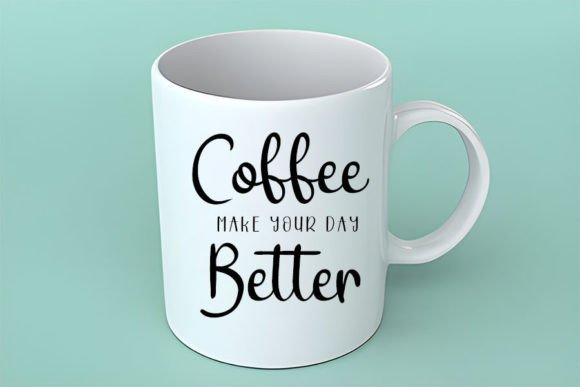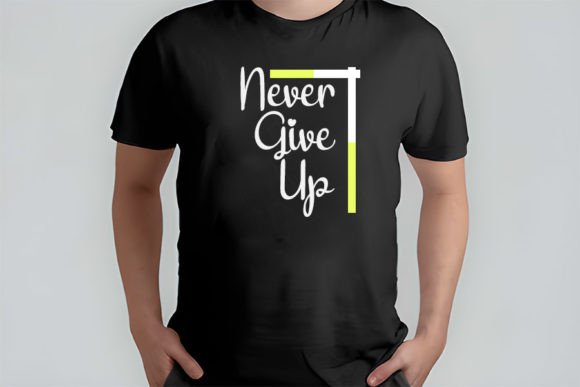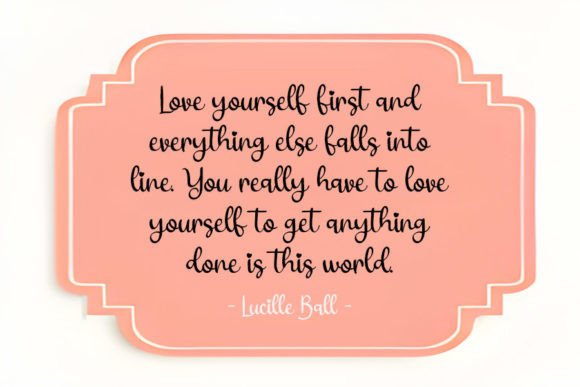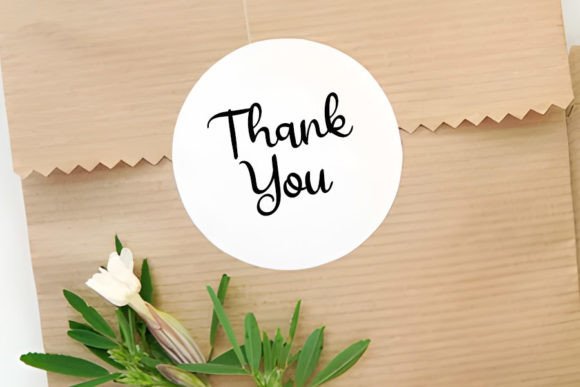
Introduction to Saintory Font
Saintory is a spectacular font, defined by characters that dance along the baseline.
Incredibly versatile, this font fits a wide pool of designs, elevating them to the highest levels Add it to your favorite creative ideas and notice how it makes them come alive.
Key Features of Saintory Font
Why Choose Saintory Font?
Saintory Font offers exceptional quality and versatility, making it a valuable addition to your design toolkit. Whether you’re creating for personal projects or commercial use, Saintory Font delivers professional results.